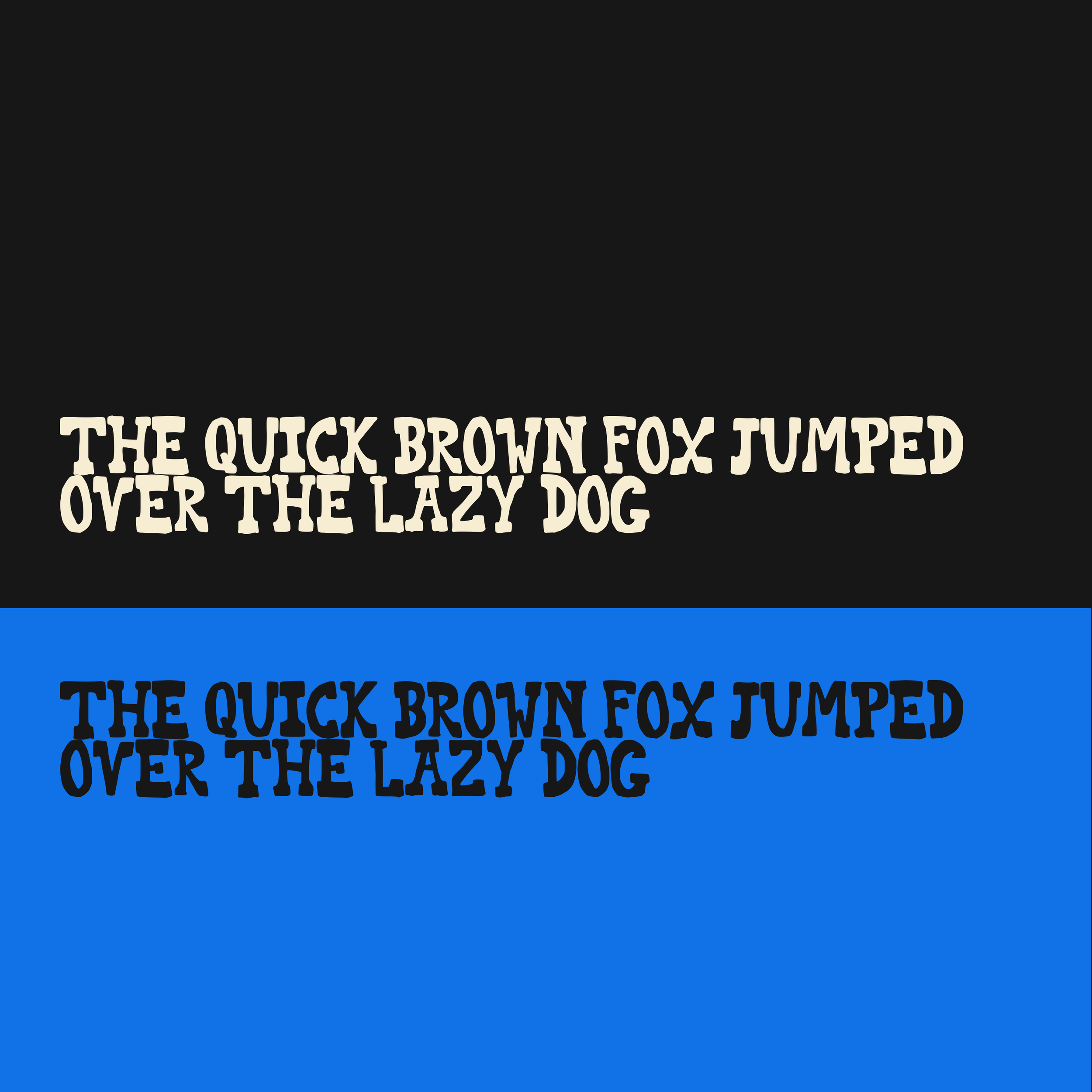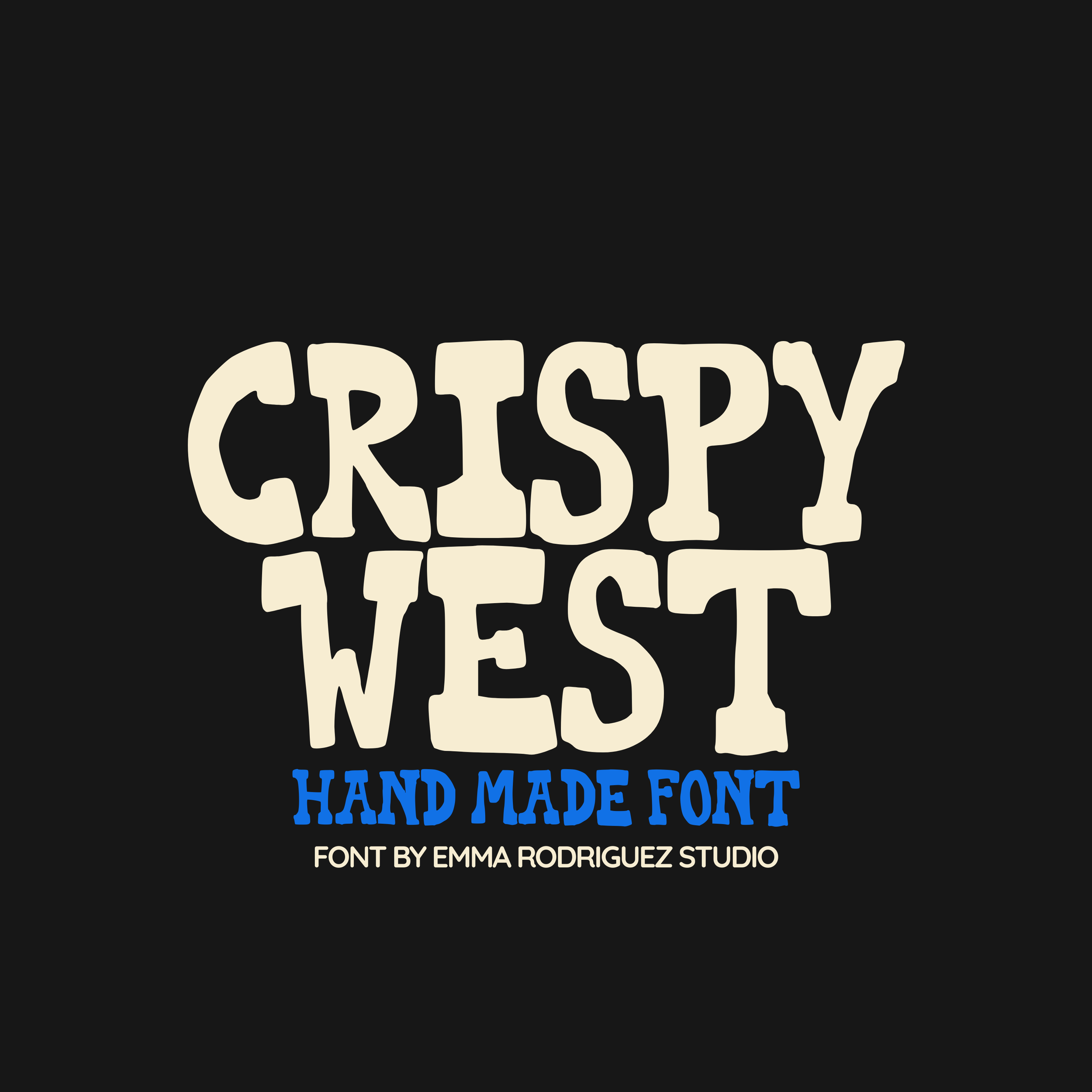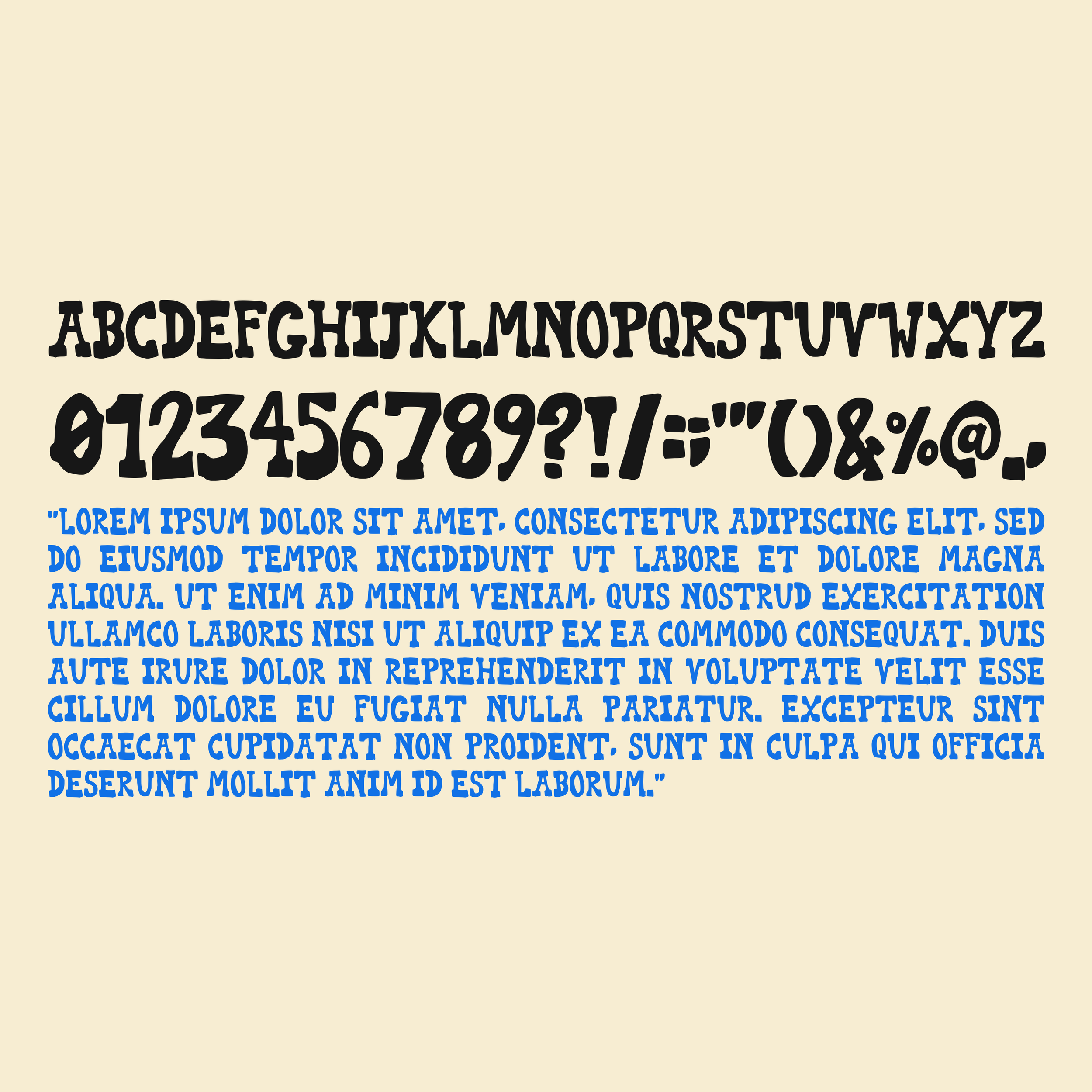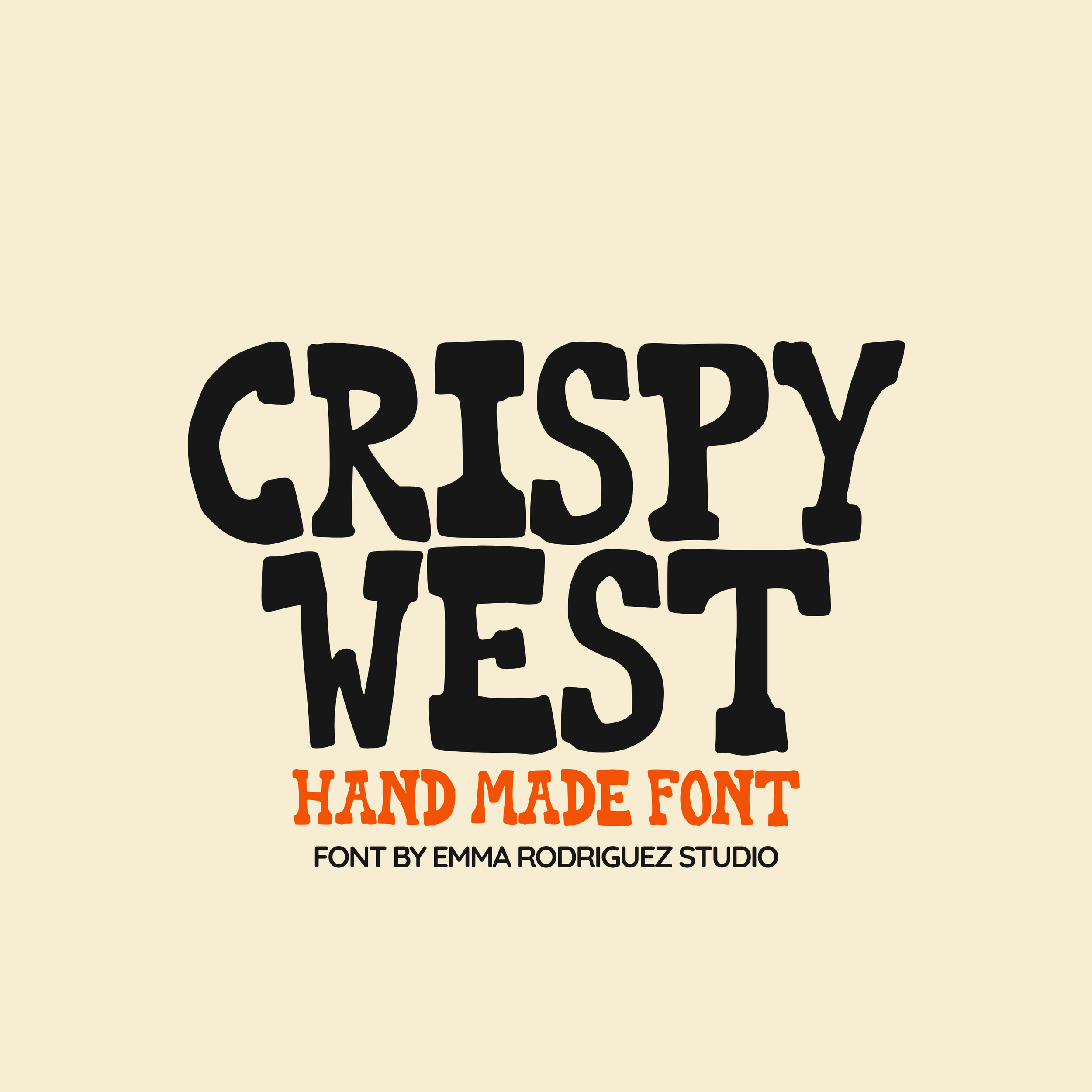
Crispy West Font | Gritty Western Cowboy Typeface, Hand Drawn Type
Crispy West – Gritty Hand-Drawn Western Font for Bold and Quirky Designs, perfect for Artists and Graphic Designers.
Say howdy to Crispy West, a raw, rugged display font with a hand-drawn edge and Western grit. Inspired by vintage rodeo posters, outlaw signage, and dusty backroad Americana, this typeface brings a rebellious twist to classic Western lettering.
Crispy West is rough around the edges in all the right ways, bold, imperfect, and full of personality. It’s perfect for designers, artists, and makers who want their work to feel wild, untamed, and packed with character. Ideal for merch, posters, zines, logos, packaging, album art, and anything that calls for a bit of cowboy chaos.
• All uppercase letters
• Numbers & basic punctuation
Whether you're branding a coffee shop, making band tees, or putting together a modern Western-style layout, Crispy West adds edge and attitude. Use it for bold titles, gritty graphics, punchy quotes, and standout statements.